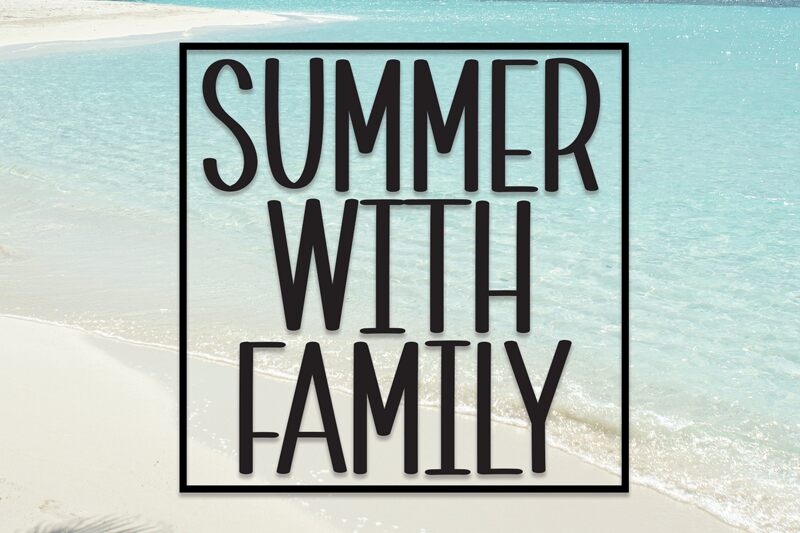
Summer With Family
Summer With Family is a delightful and expressive playful display font by Scratchones.
Its semi-light weight and extra-condensed width make it perfect for creating eye-catching headlines and titles. The all caps, block letter design adds a touch of playfulness to any project, making it ideal for children's books, summer event flyers, family-related websites, and cheerful social media posts. Whether you're designing invitations for a family reunion or crafting vibrant banners for a summer camp, Summer With Family will bring joy and warmth to your creative endeavors.